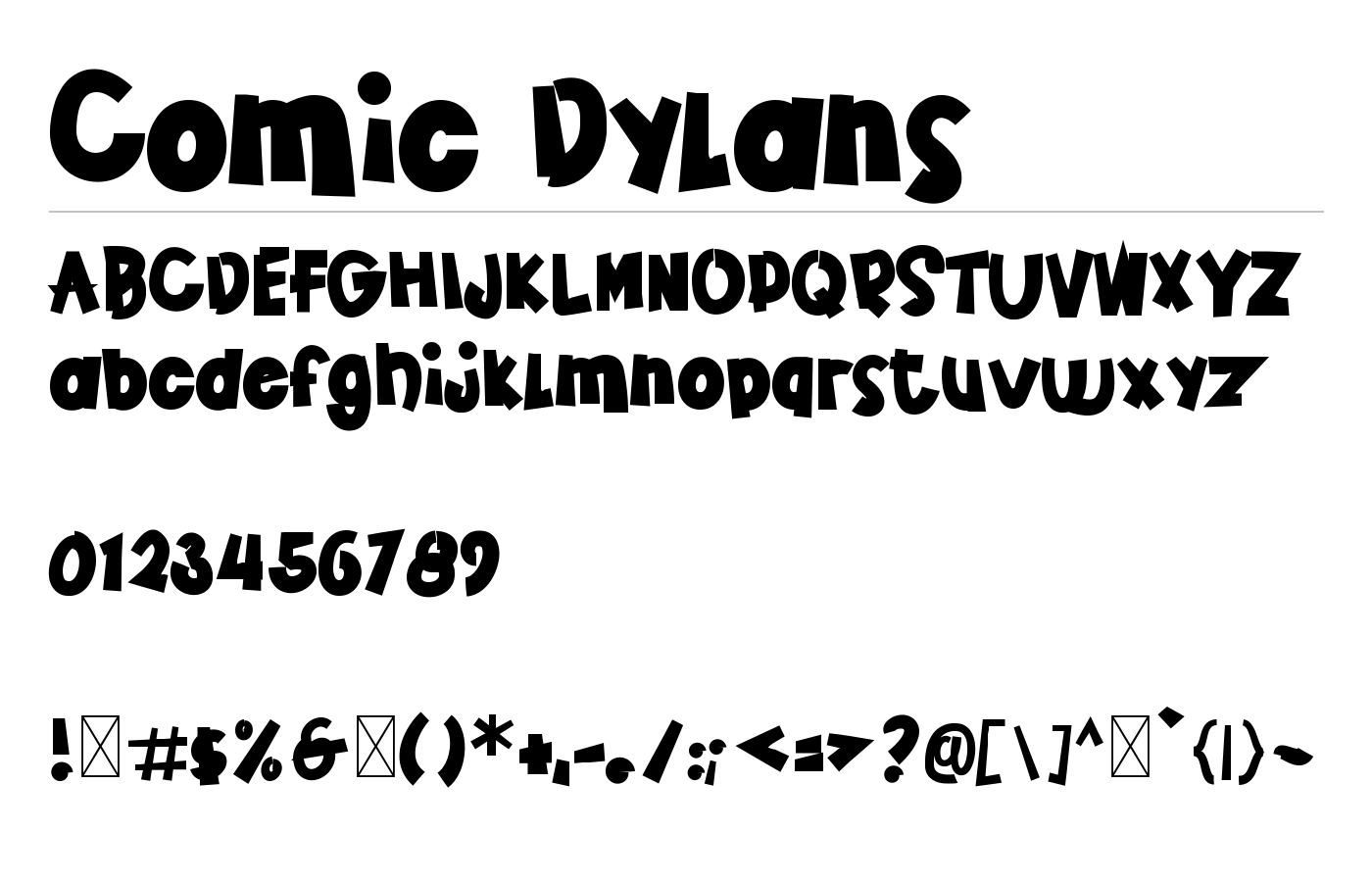
Comic Dylans is a bold and playful sans serif font with a quirky, hand-drawn feel. Its irregular shapes and lively, slightly condensed letterforms make it perfect for fun, informal designs that need a whimsical touch, such as children’s books, comic-style graphics, and creative branding. This font’s energetic personality and clear readability work well for headlines, logos, and any project seeking a friendly and approachable look.